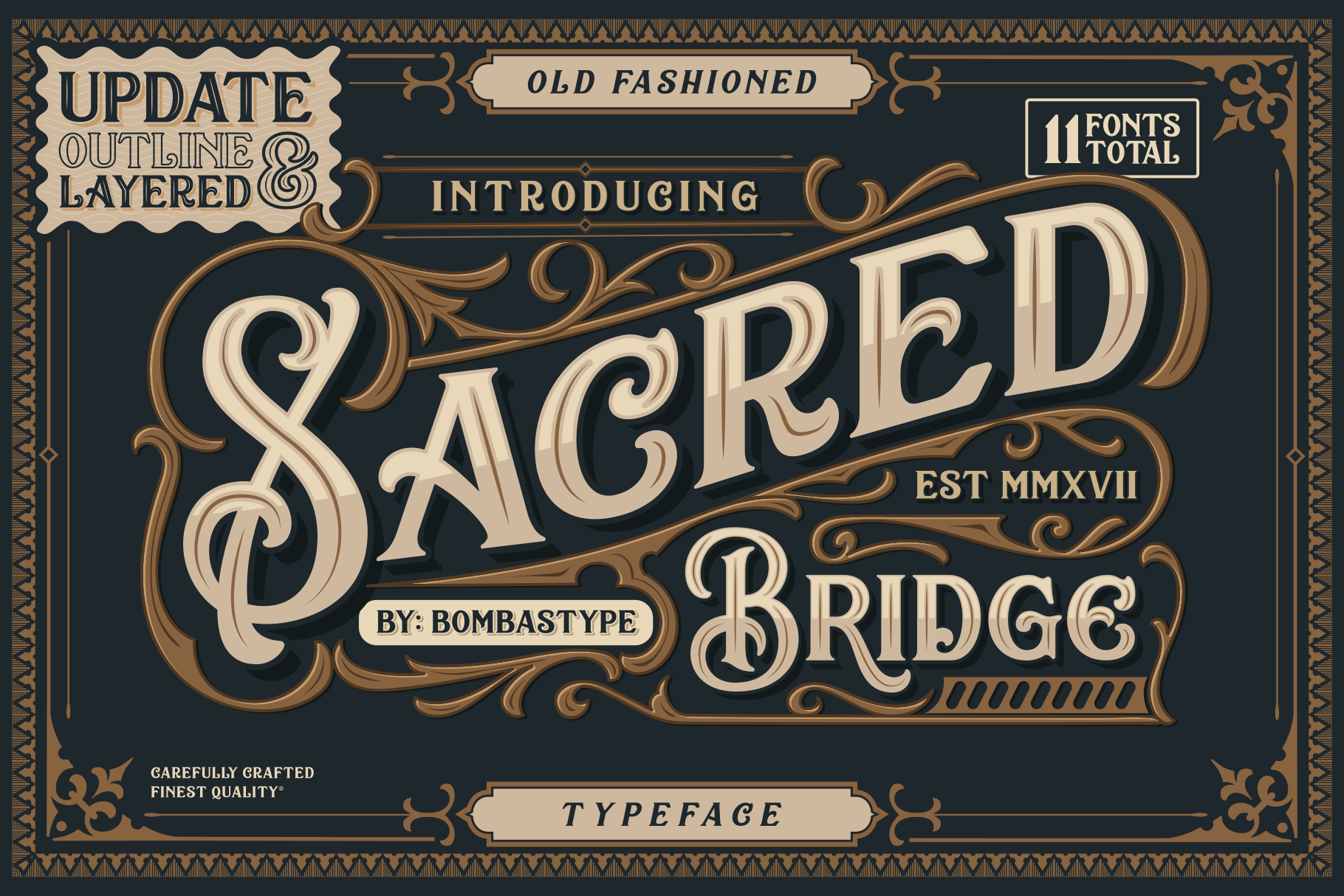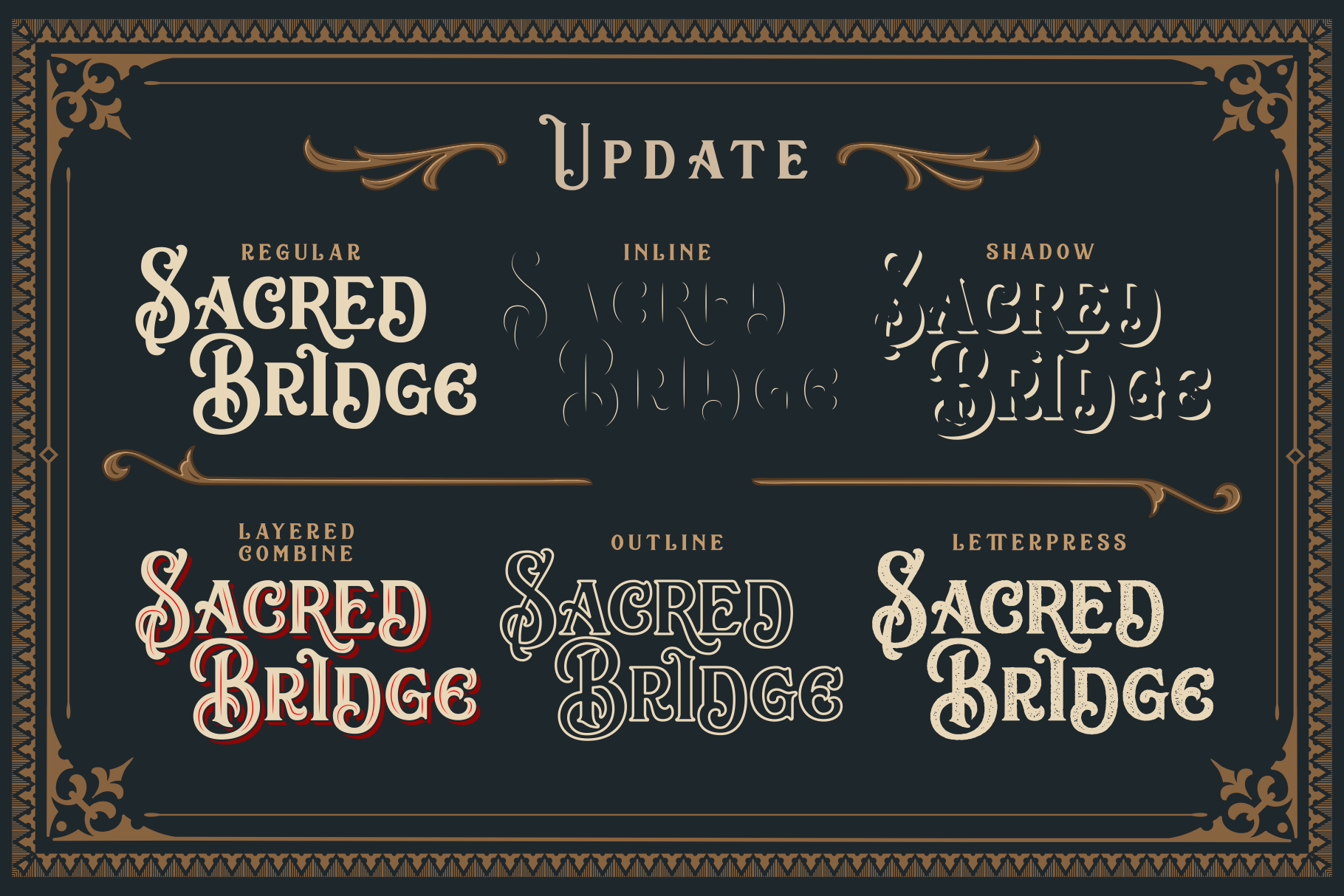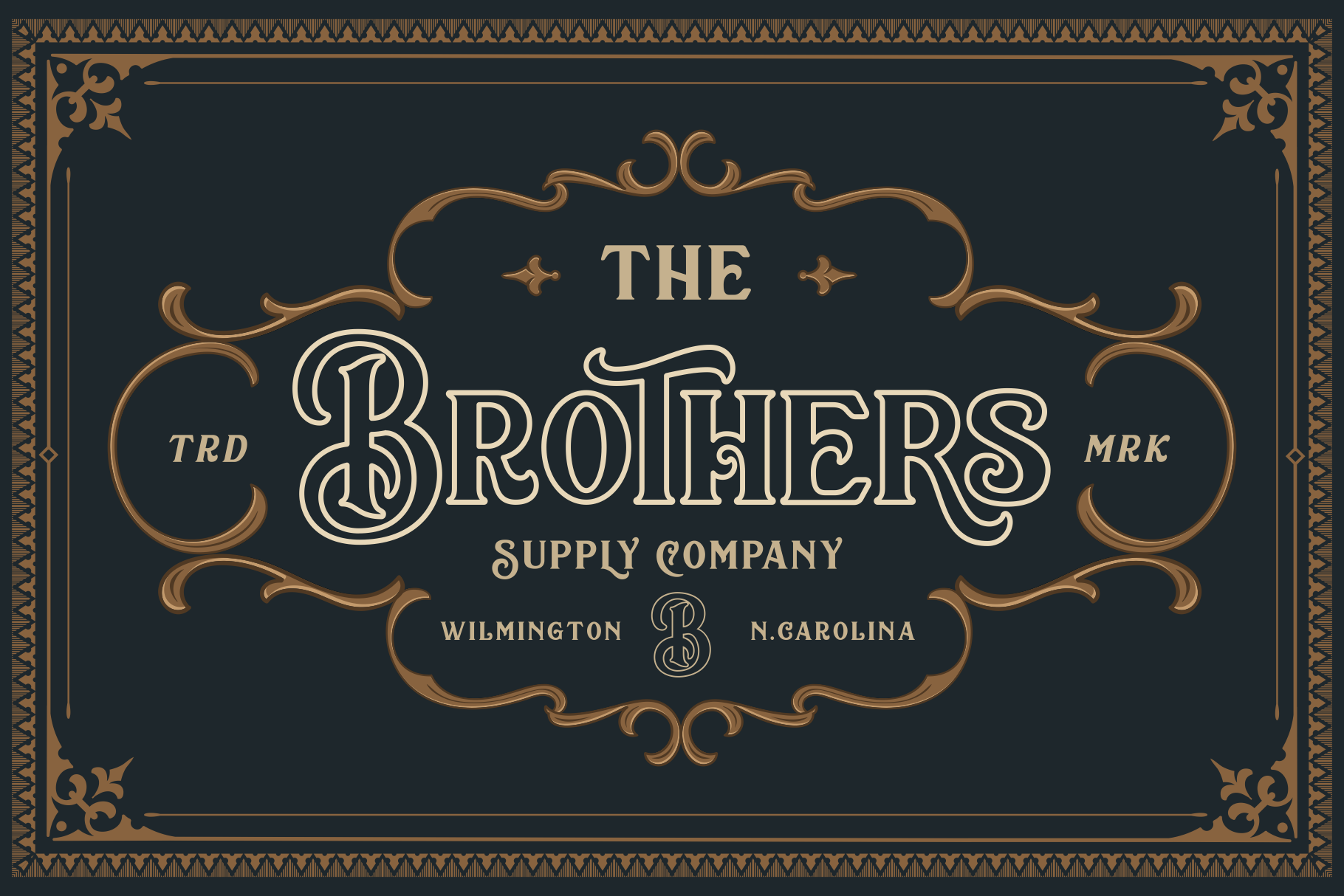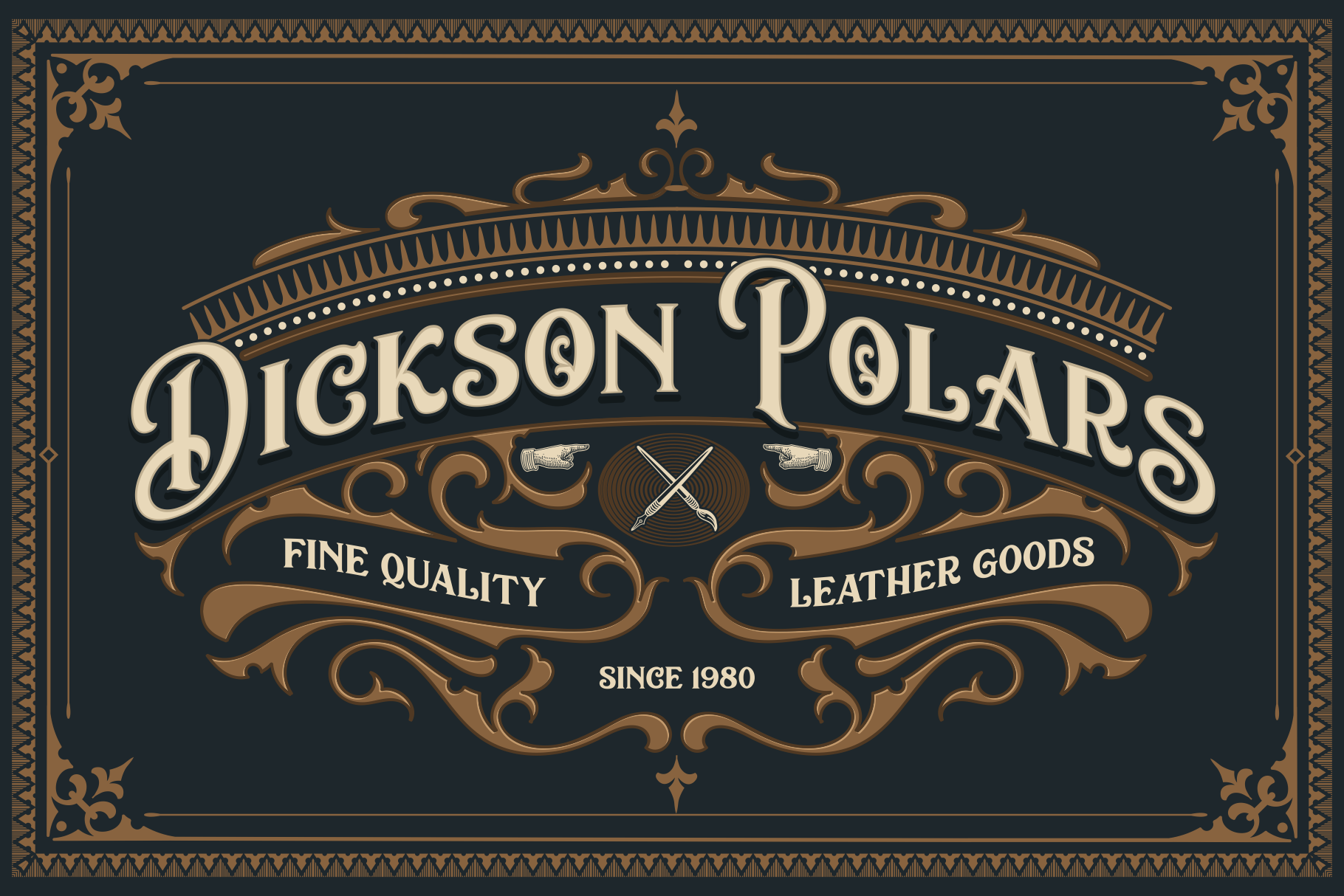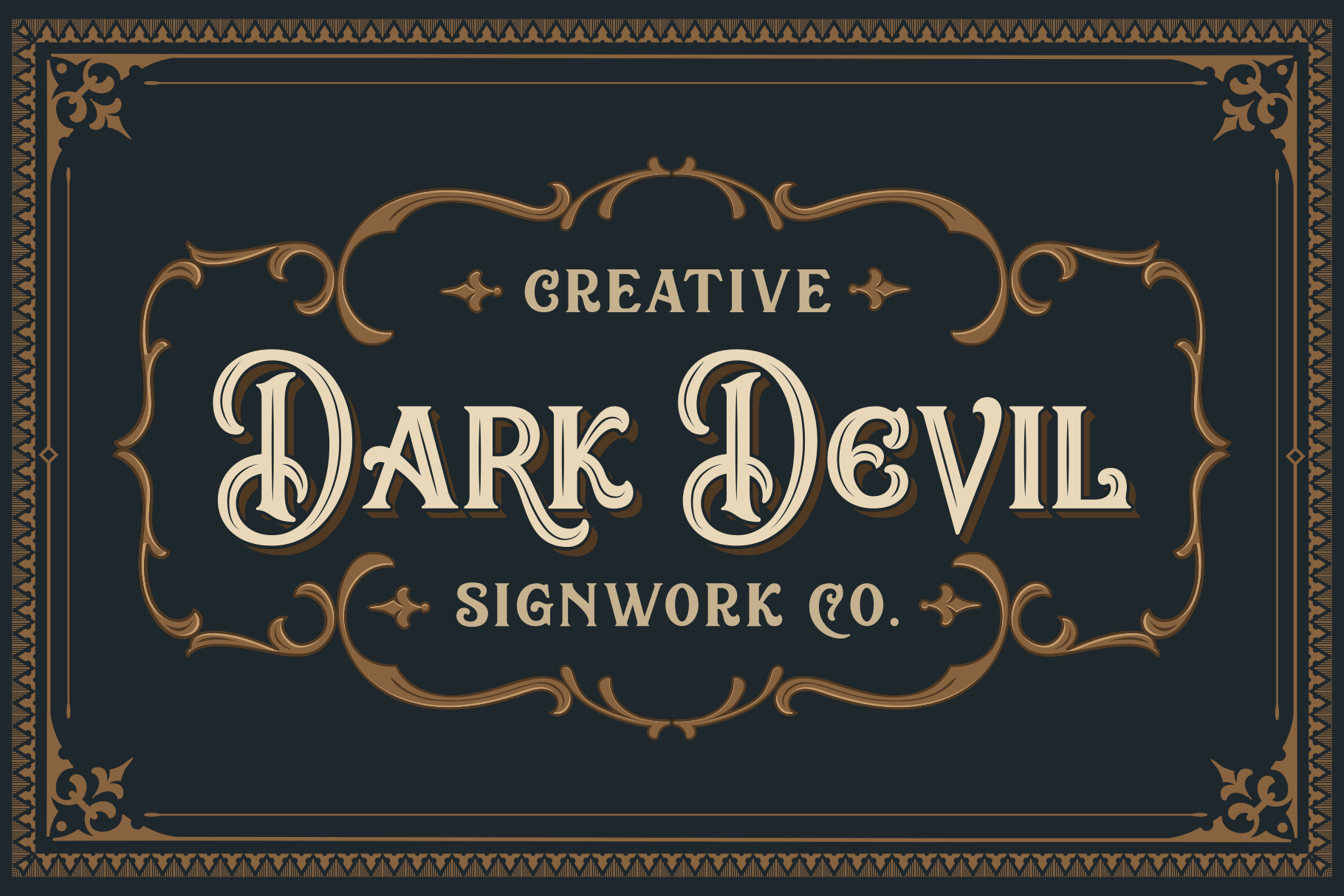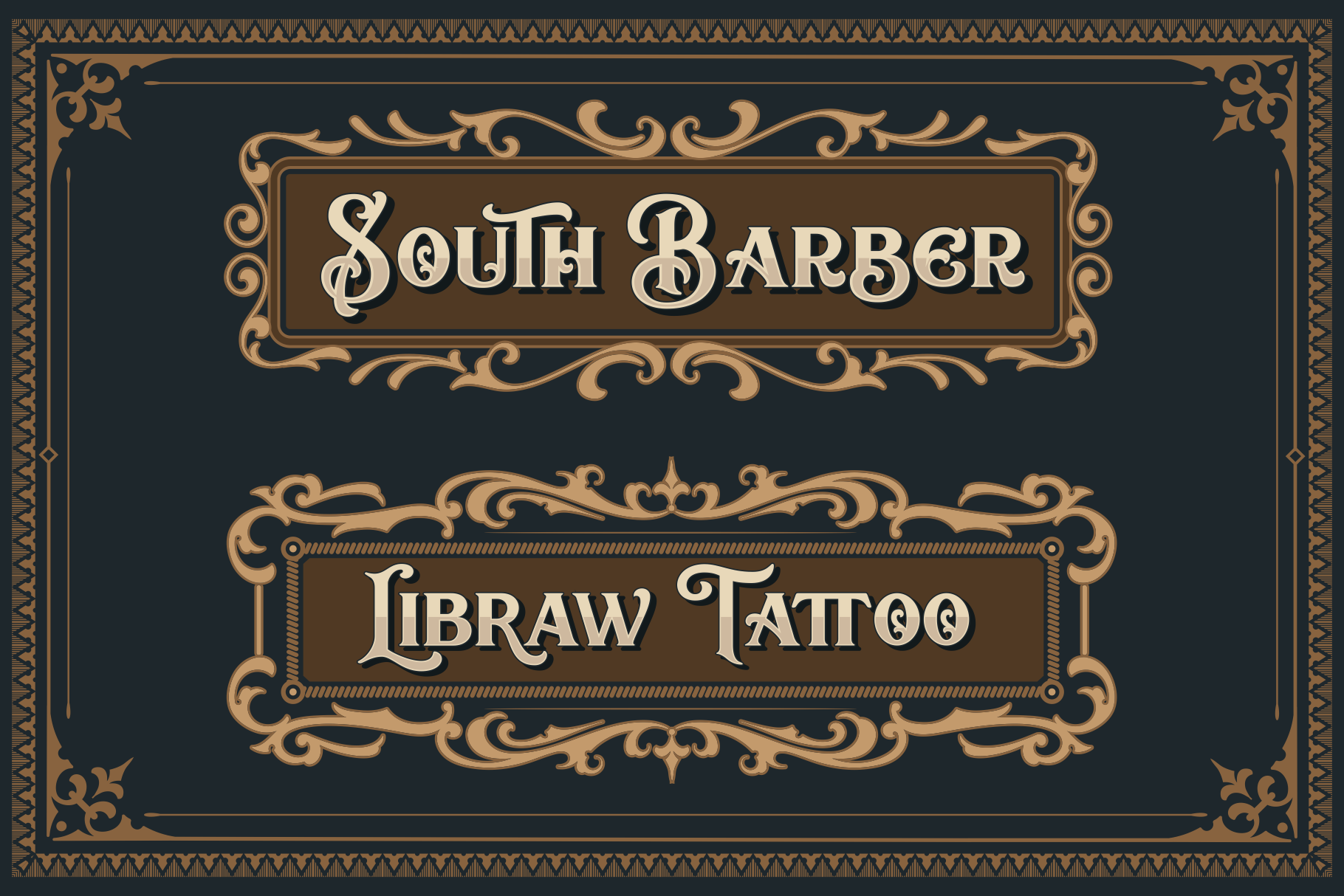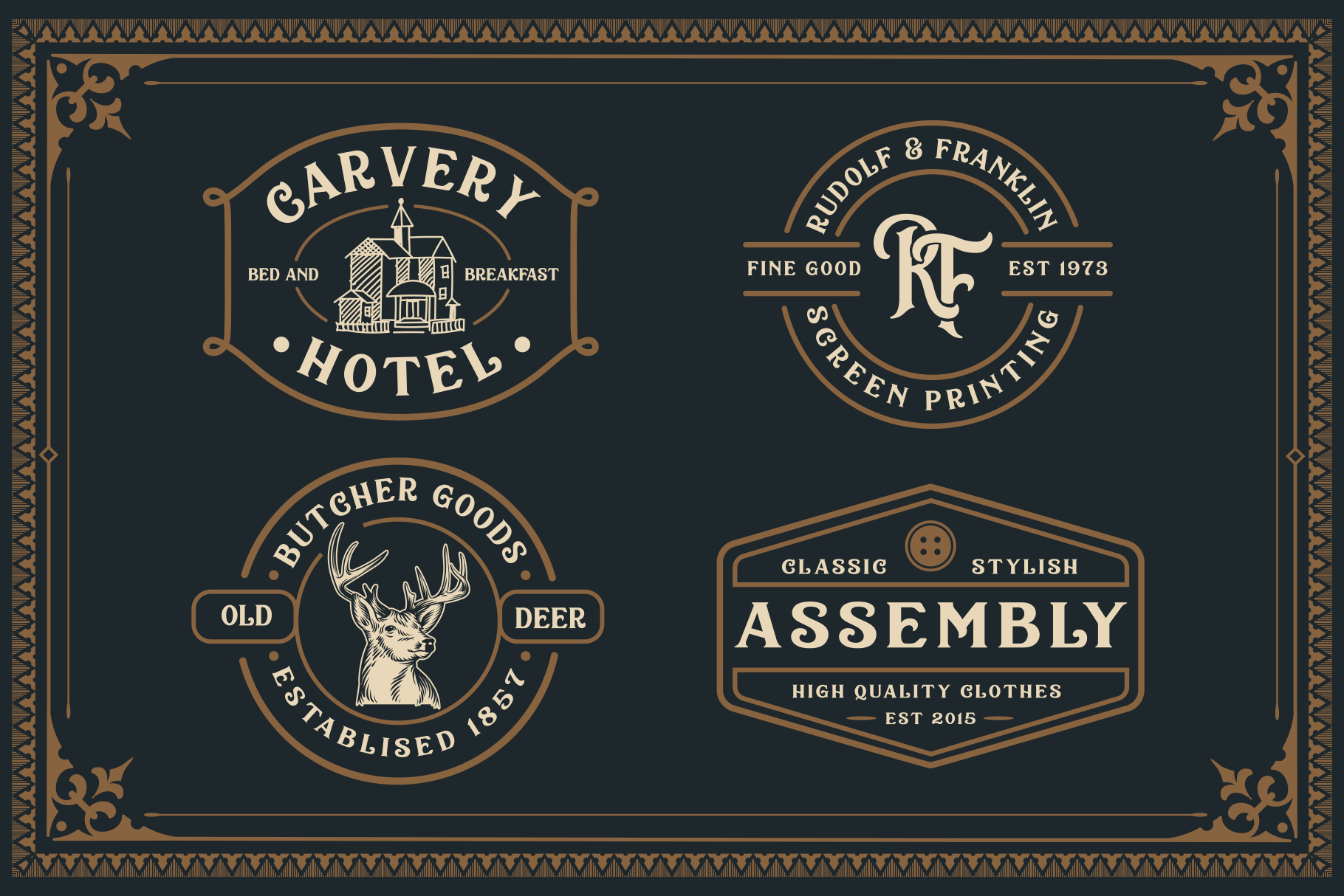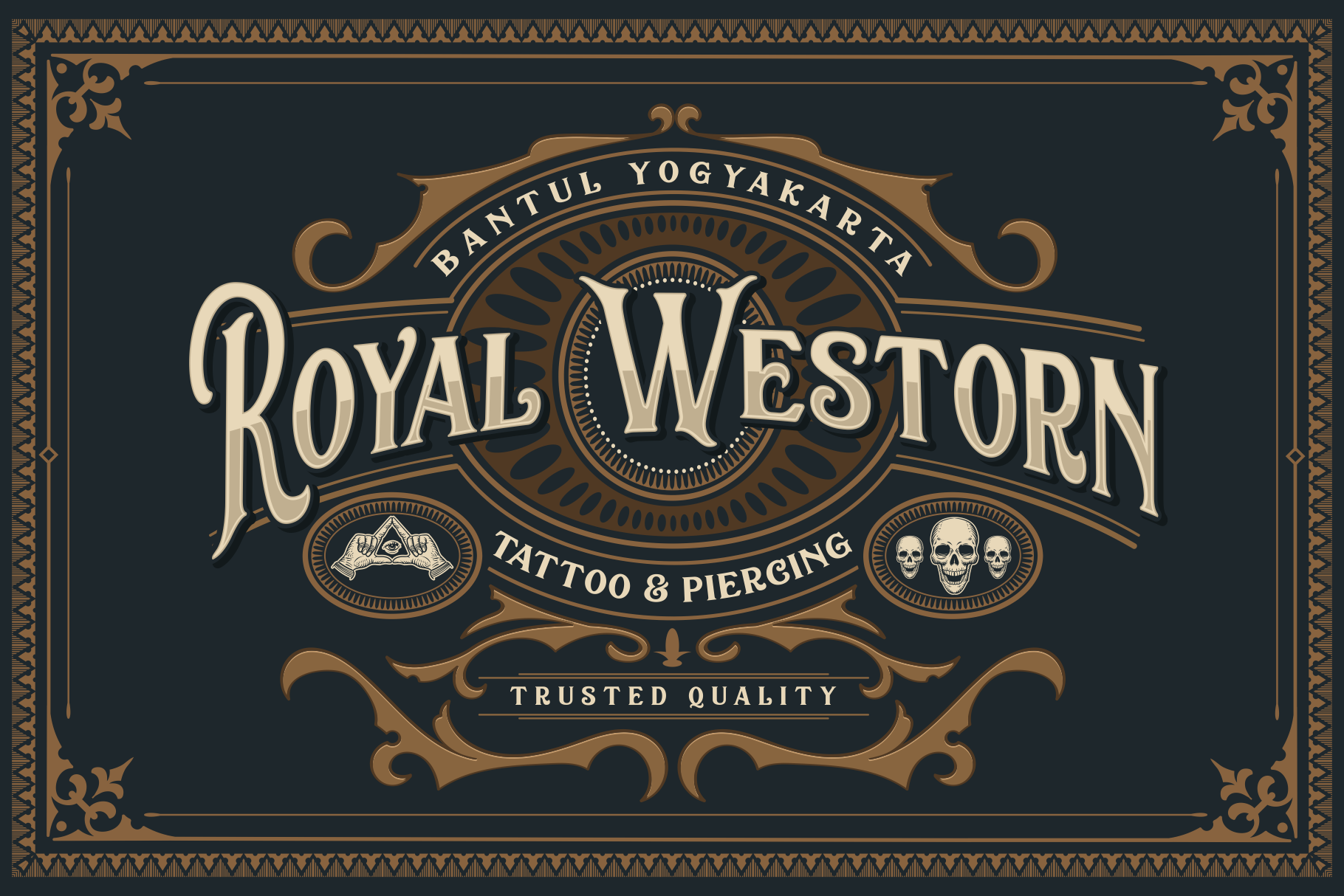
Sacred Bridge is an amazing font family, perfect for a wide range of design concepts. Old fashioned and stunning, Sacred Bridge is suitable for antique or traditional designs, as well as modern designs with a twist.